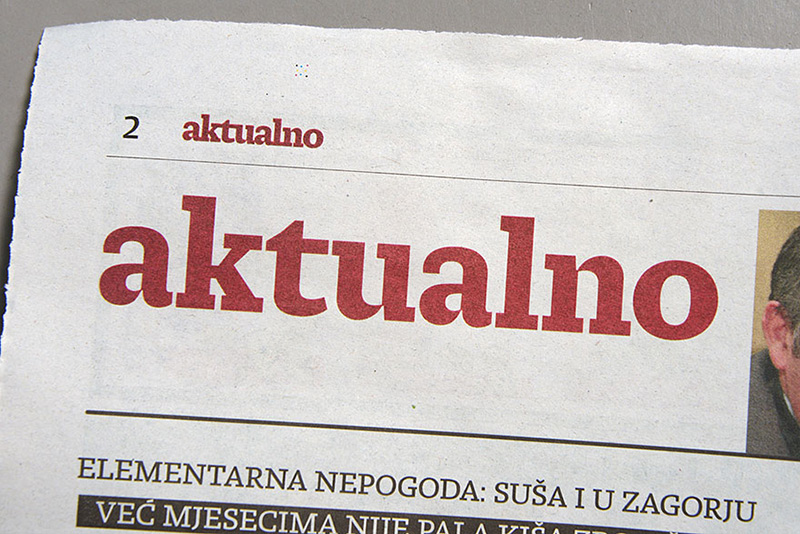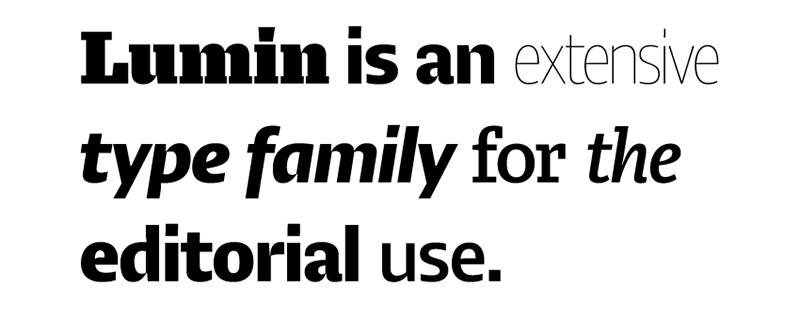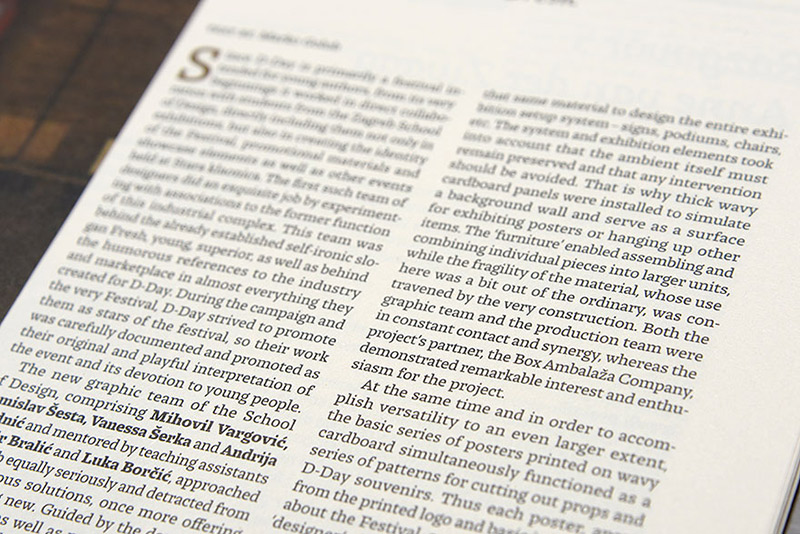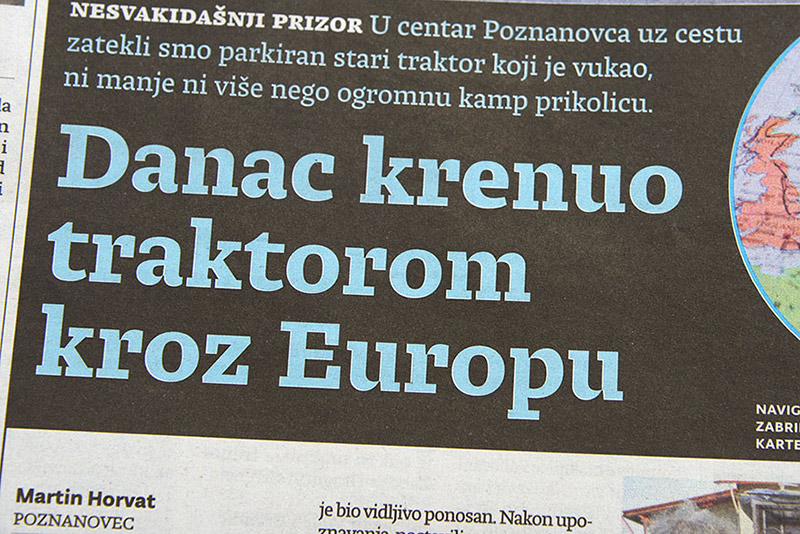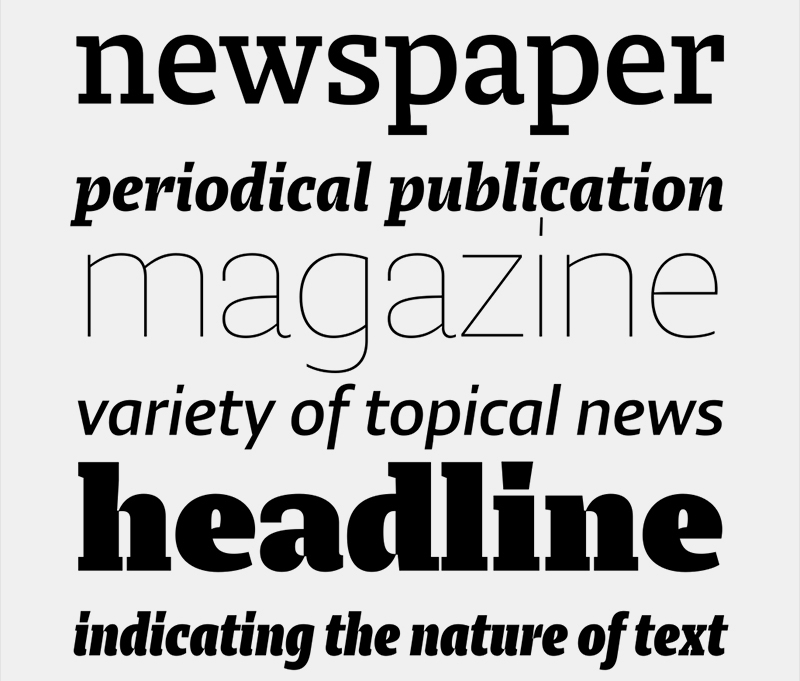
Lumin typeface family
Typotheque hat eine neue Schrift veröffentlicht.
Pressetext: The Lumin family includes slab-serif, sans serif, condensed and display typefaces, all of which play with the idea of contradiction. The contrast between horizontal and vertical strokes seems to be quite subtle, evoking the slab serifs of the past century. The stroke connections, however, are sharply chiseled, reminiscent of high-contrast modern types, an effect especially pronounced in the heavier weights. The result is hybrid letterforms that look almost like stencil drawings, yet maintain high legibility at the smallest sizes.
Lumin is a sturdy slab-serif face with large counters and a large x-height. Its serifs are unbracketed and asymmetric, emphasising the rightward flow of reading.
It’s not easy to describe newly-published typefaces before their usefulness has been demonstrated in real world application. Lumin has already been rigorously tested in magazines and newspapers, so you can see for yourself how it performs in these samples.
Lumin
Foundry: Typotheque
Designer: Nikola Djurek